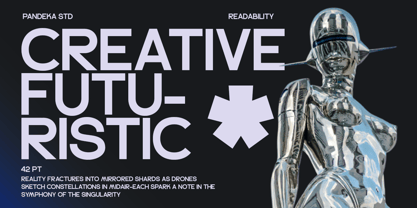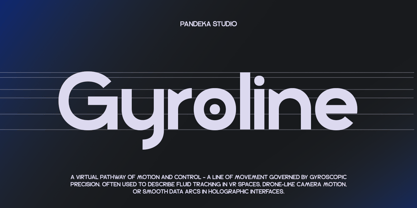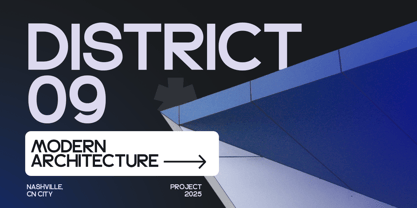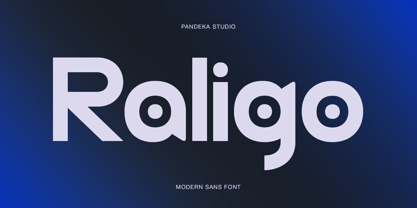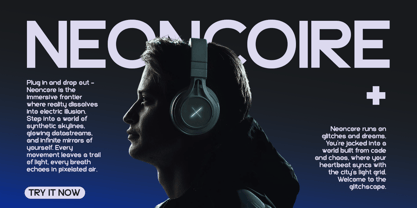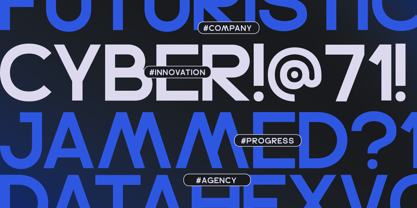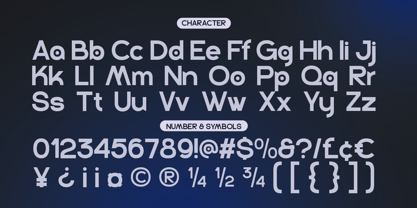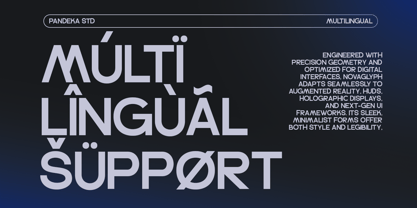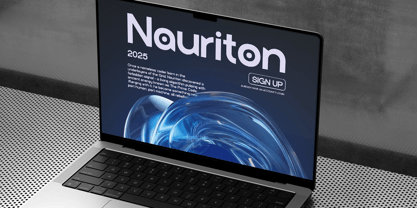
Raligo is a sleek and futuristic sans serif font crafted for modern design aesthetics. With its rounded edges, balanced proportions, and contemporary flow, Raligo brings a clean yet forward-looking personality to your projects. It works seamlessly across branding, digital interfaces, editorial layouts, posters, and architectural presentations.
Even though it comes in a single Regular style, Raligo offers strong versatility — perfect for titles, headlines, and digital environments that demand clarity with a modern edge. Complete with uppercase and lowercase letters, numerals, punctuation, symbols, and multilingual support, this font is built to perform across global creative needs.